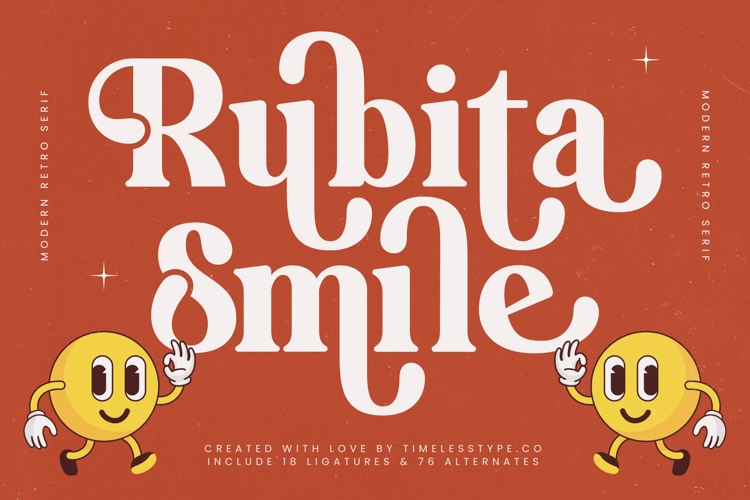
Rubita Smile - Modern Retro Serif
Rubita Smile Typeface is a modern retro serif font that captures playful charm with bold elegance. Featuring 18 ligatures and 76 stylistic alternates, this typeface offers endless possibilities for designers to craft unique and expressive typography. Its chunky letterforms, whimsical curves, and decorative swashes bring out a nostalgic retro vibe while still feeling fresh and modern. Rubita Smile is perfect for projects that aim to blend fun, friendliness, and vintage sophistication into one design.